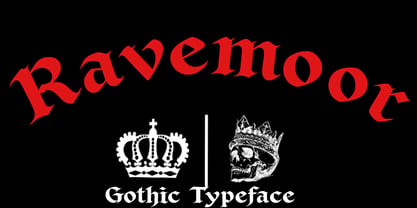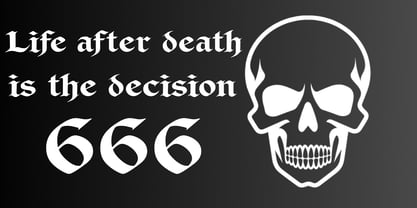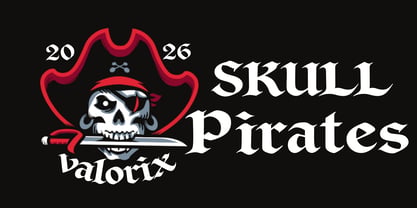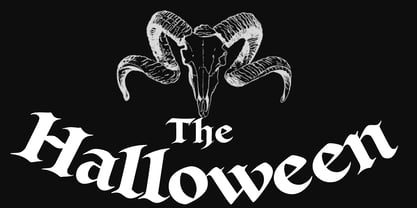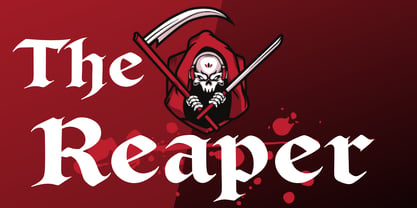
Ravemoor
by Valorix Studio
The Ravemoor Font Family was designed by Erick Rismawan Valorix and published by Valorix Studio. Ravemoor contains 2 styles and family package options. More about this family
Ravemoor is a bold Gothic display typeface that embodies dark elegance and medieval character. With its sharp, angular serifs and distinctive letterforms, it creates a powerful and dramatic visual presence. Inspired by classic blackletter styles yet refined for modern use, Ravemoor offers a balance between ornamental detail and readability. Each character is carefully crafted to deliver a strong identity, making it ideal for designs that demand attention and atmosphere. Perfect for logos, book covers, posters, branding, tattoos, and cinematic titles, Ravemoor brings a timeless Gothic essence into contemporary design. Perfect for: Gothic themes, dark branding, fantasy projects, editorial headlines, and artistic compositions. Ravemoor is more than a typeface—it’s a visual tone, where darkness meets refinement.
Designers: Erick Rismawan Valorix
Foundry: Valorix Studio